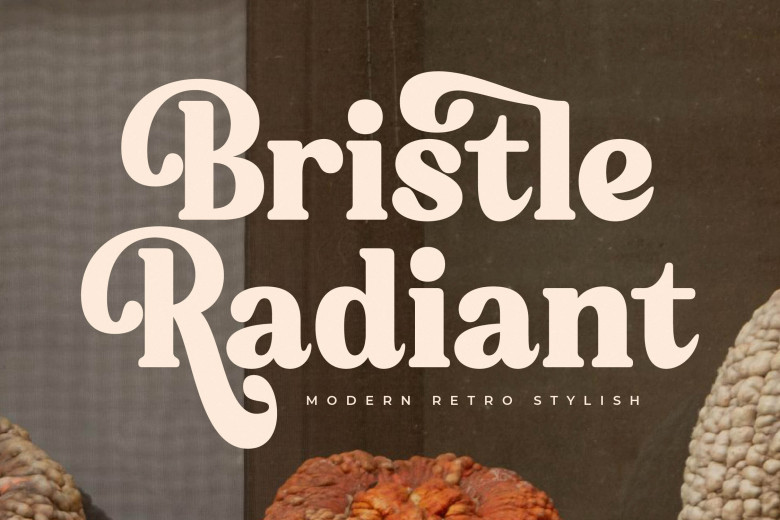
Bristle Radiant Font
Bristle Radiant is a modern yet classic font, perfectly combining contemporary style with sophistication. Boasting clean lines and symmetrical proportions, it makes an excellent addition to editorial designs as well as branding logos or branding designs with elegance and professionalism. Bristle Radiant’s classic appeal as well as versatility will help any project come to life beautifully and professionally.
Bristle Radiant Serif Font